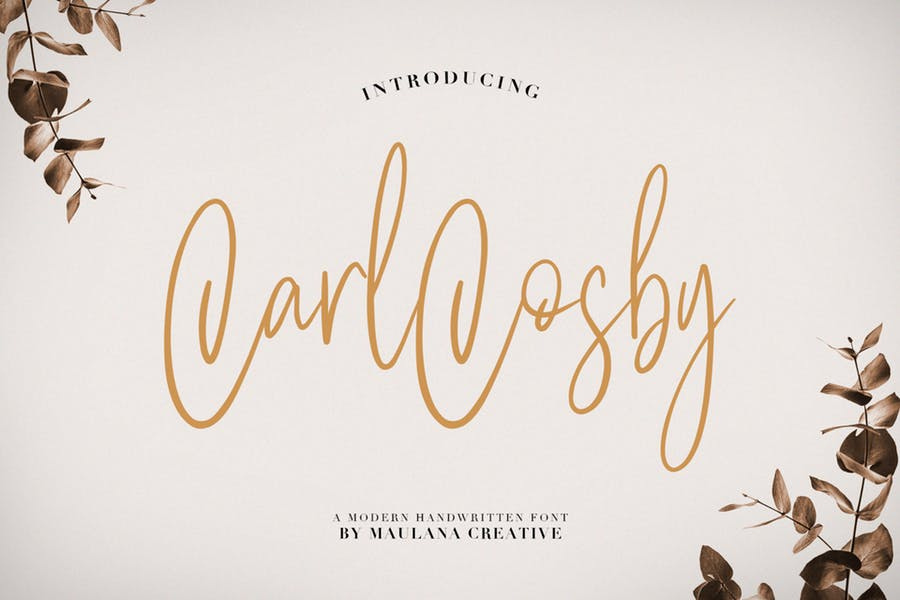
Carlcosby Font
Carlcosby Font is perfect for casual branding projects, friendly neighborhood businesses, approachable service companies, family-oriented marketing, community event materials, local restaurant signage, welcoming web typography, and down-to-earth advertising campaigns. This personable typeface works wonderfully in both digital applications and print media where genuine warmth and relatable authenticity are essential design elements.
What makes Carlcosby Font so exciting is its authentic capture of everyday American friendliness through comfortable letterforms that seem crafted with the genuine warmth of neighborhood hospitality and small-town charm. The font features approachable characters with familiar proportions, trustworthy curves, and relatable details that create an immediate sense of comfort and honest connection. Its personable personality and community-focused design make it ideal for brands seeking to establish genuine relationships with local audiences while communicating reliability, accessibility, and the enduring values of neighborly service and community trust.
The Carlcosby Font family includes multiple weight variations with different friendliness levels, along with casual alternates and community-inspired ornamental elements. Each style maintains the typeface's approachable character while offering comprehensive character sets including friendly numerals, conversational punctuation marks, and special symbols designed to enhance local communications and neighborhood branding efforts across various community contexts.
This extraordinary typeface represents the perfect fusion of personal authenticity and professional functionality for local service and community-oriented industries. Whether you're developing family business identities, creating neighborhood service materials, or designing community event promotions, Carlcosby Font Free Download delivers the genuine warmth and versatility needed to connect with local audiences. The font's community appeal makes it particularly effective for local restaurants, family services, neighborhood businesses, and organizations celebrating the importance of personal relationships and community values.
The carefully crafted friendly details and optimized community performance in Carlcosby Font ensure both personal authenticity and clear communication across all local applications. Its welcoming presence makes it perfect for neighborhood branding, community marketing materials, and local communications where its full personable character can create lasting bonds with audiences seeking genuine service, honest value, and the comfort of trusted community relationships.